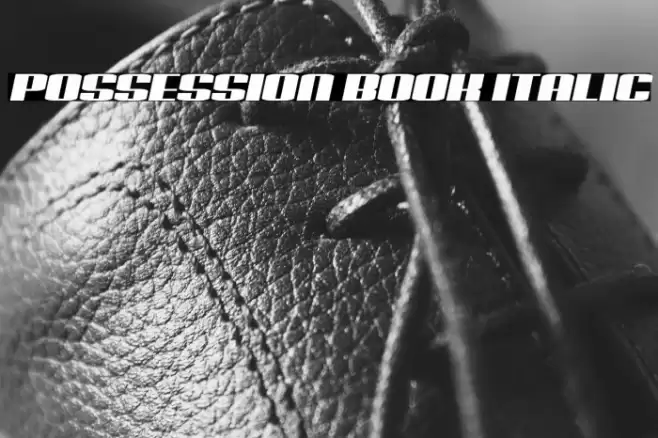
Possession Book Italic Font
Possession Book Italic Description
This font features a bold and dynamic style with a strong italic slant, giving it a sense of motion and energy. The characters are wide and have a condensed appearance, with sharp, angular edges that create a modern and futuristic look. The uppercase letters are particularly striking, with a uniform height and consistent stroke width that enhances readability. The font's design is clean and uncluttered, making it suitable for a variety of applications where a bold statement is needed. The spacing between characters is tight, which adds to the compact and impactful aesthetic.
A bold, italic font with a modern, dynamic style and tight character spacing from Uncategorized fonts.
- Font: Possession Book Italic
- Proposed Projects: Ideal for sports branding, dynamic posters, futuristic designs, and bold headlines.
- Character Spacing: Tight